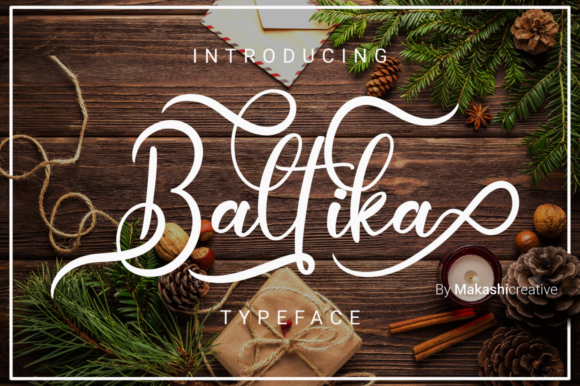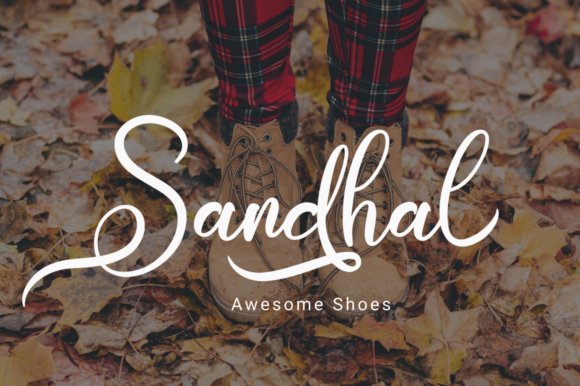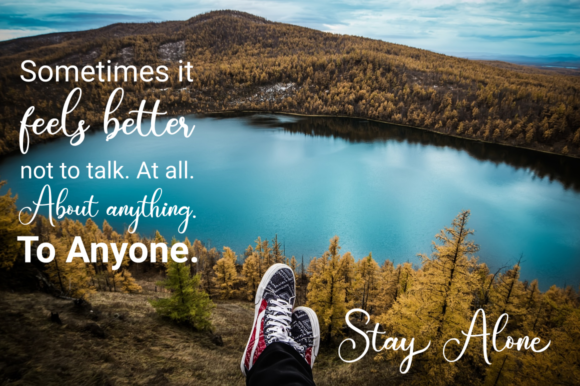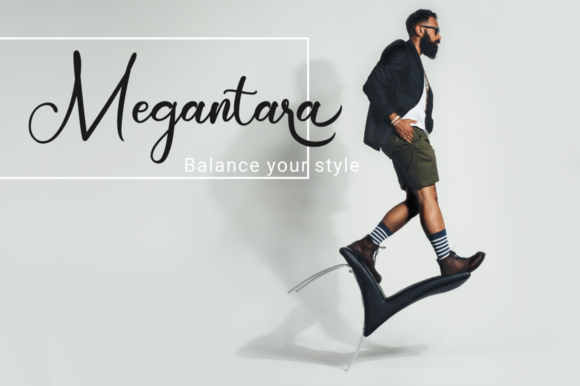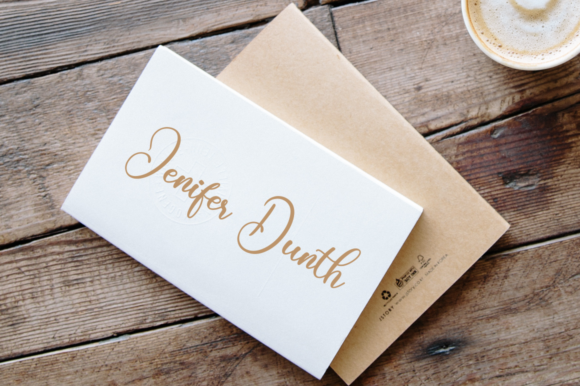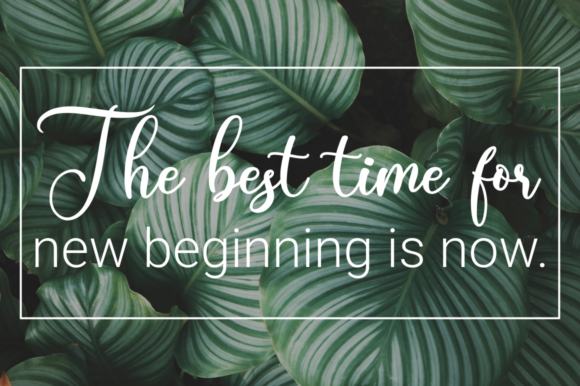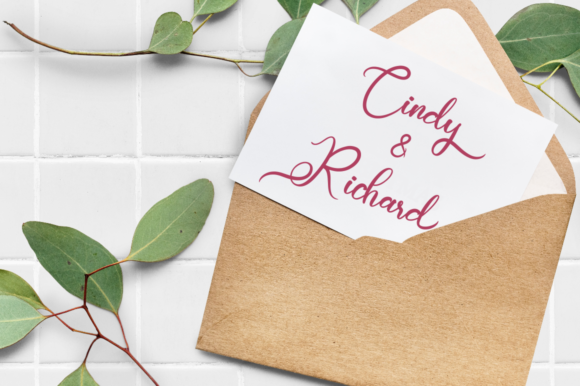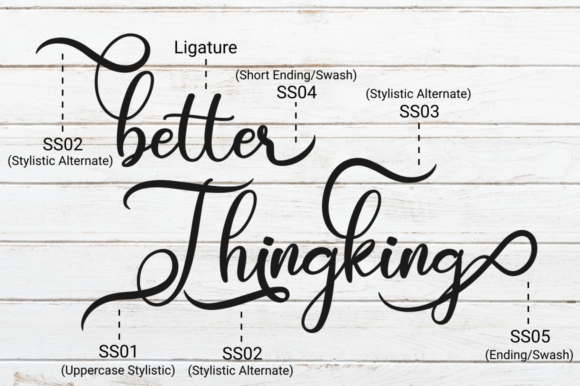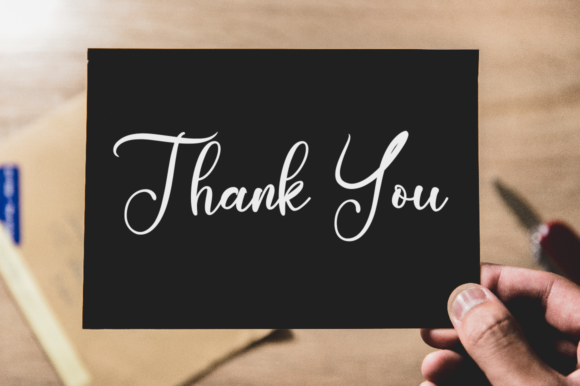
Baltika Font
About Baltika Font
The Baltika is an elegant calligraphy font. It includes stylistic alternates and amazing swashes which are perfect for branding, greeting cards, quotes, posters, invitations, and much more!